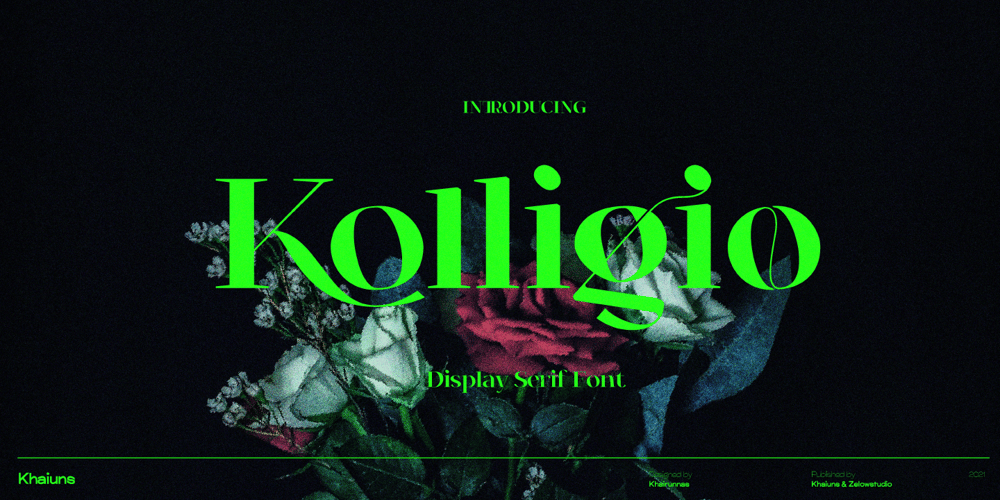
Kolligio Font Family was designed by Khair Unnas and published by Khaiuns. Kolligio contains 1 styles and family package options. Proud to Introduce you a Kolligio — classic serif full of modern mood, with ligatures, special alternative glyphs and old style. The high contrast between thick and thin strokes gives Kolligio so stylish look and is ideal for headlines, headers, logos, labels, packaging, postcards, presentations, magazines, invitations, etc_______________________________________________________________________________________Kolligio has more than 60 upper and lower case ligatures, and for alternative letters (K, L, b, d, o, p and q) simply add plus after the letter._______________________________________________________________________________________Please message me if you want your language included or If there are any features or glyph requests, feel free to send me a message, I would like to update it._______________________________________________________________________________________I hope you have a blast using Kolligio._______________________________________________________________________________________Thanks for use this font ~ Khaiuns